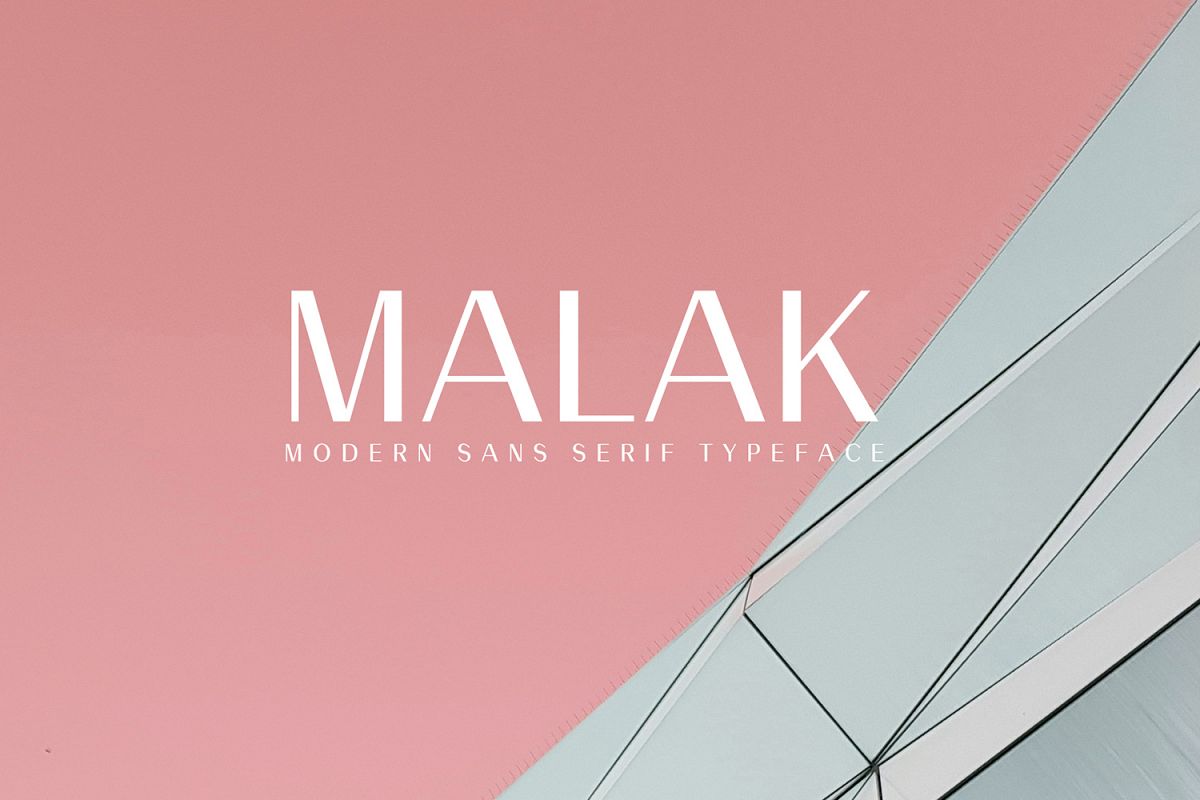
Malak Sans Serif Font Family
Malak is a brand new beautiful sans serif font family with wide choice of weights that looks stunning in every context. It contains 3 weights. Malak is great for magazine, logos, invitations, text, presentations, posters, notices, titles, name card, web layouts, headers, branding, weddings, social media, product design, stationery and advertising, and other any business related.
• Font Weight: Regular, Italic, Thin, Thin Italic, Bold and Bold Italic
Font Features:
• Uppercase Letters
• Lowercase Letters
• Number and Punctuation